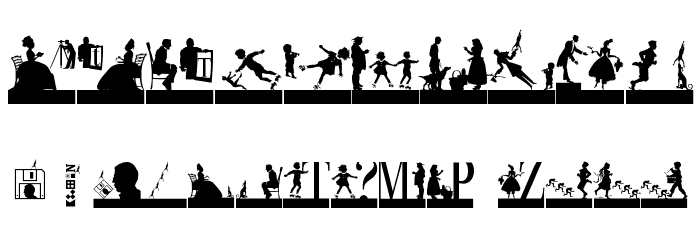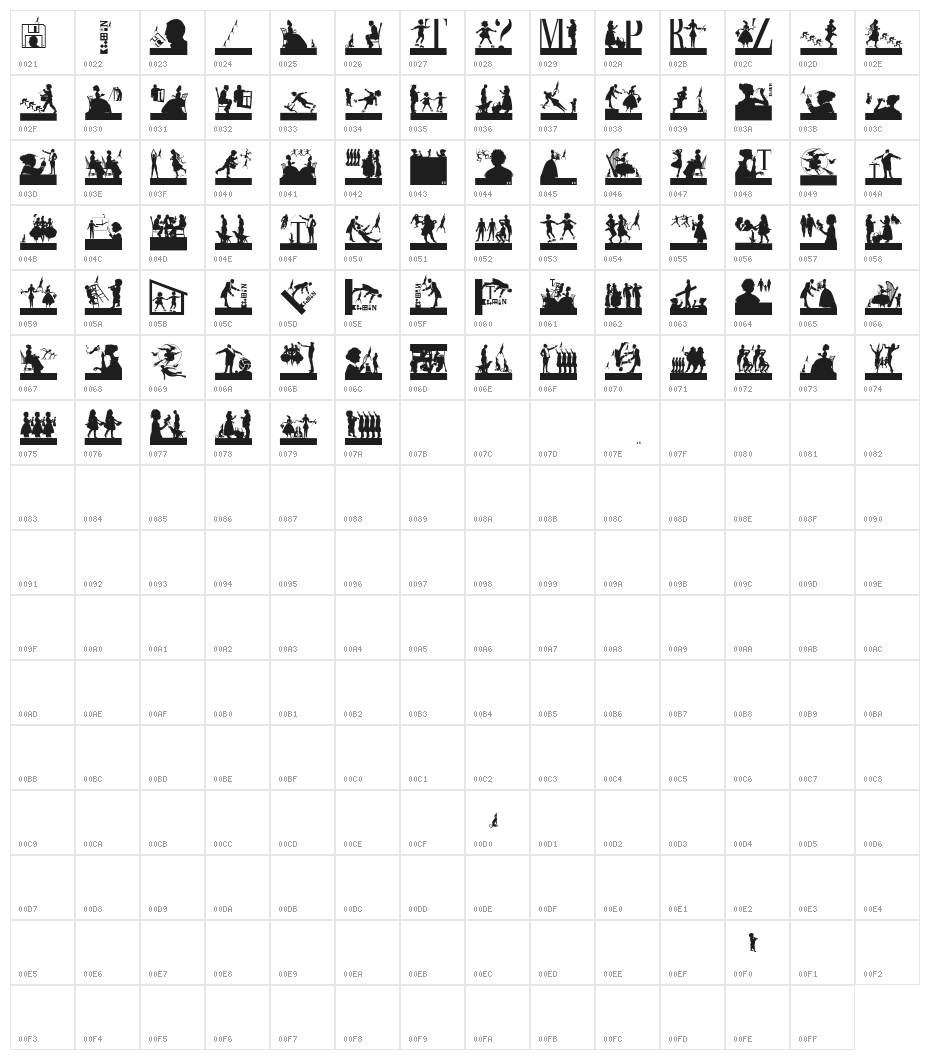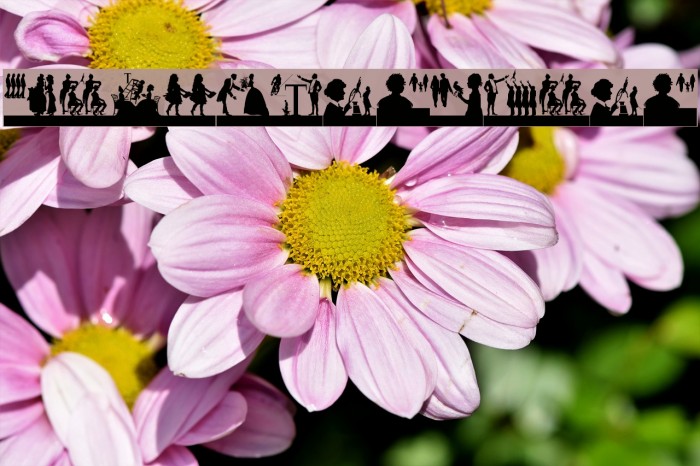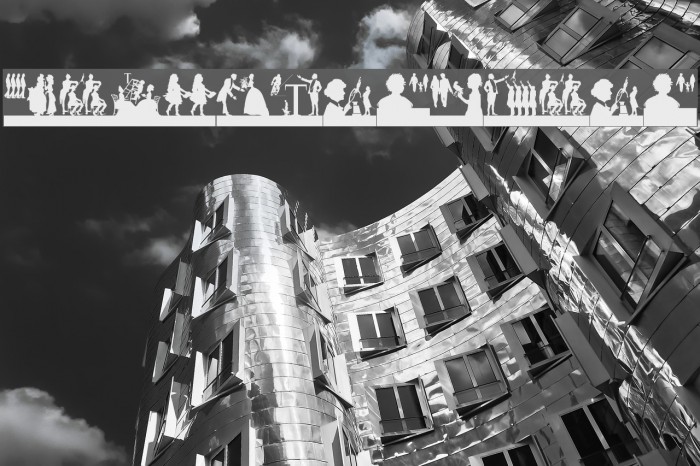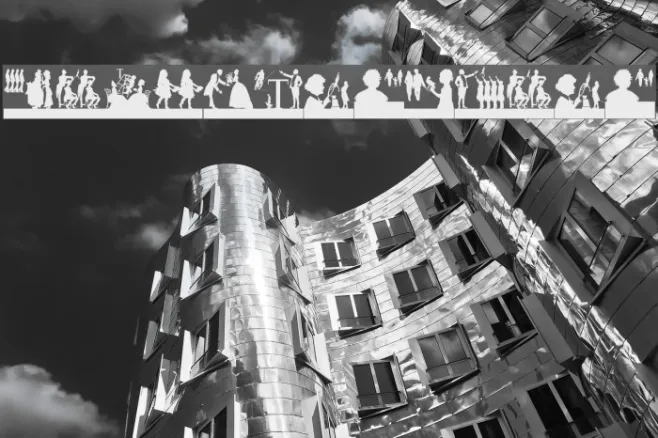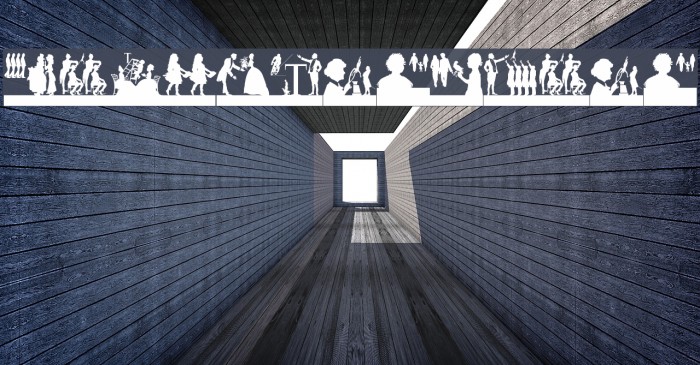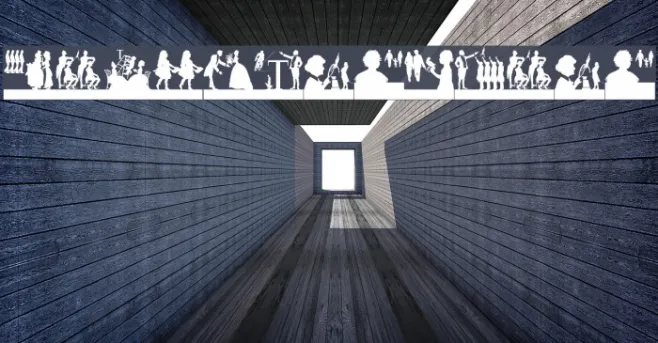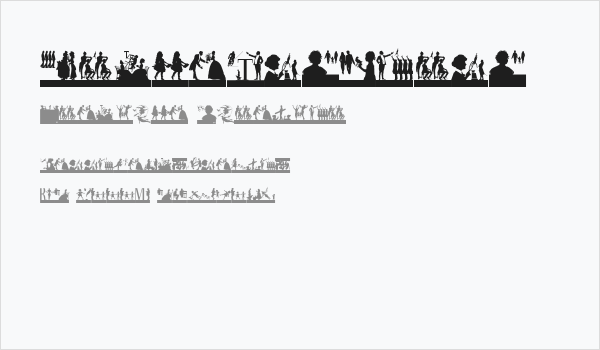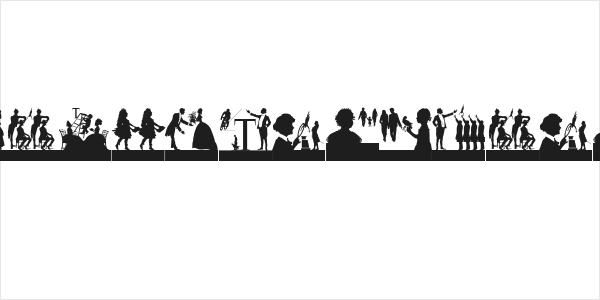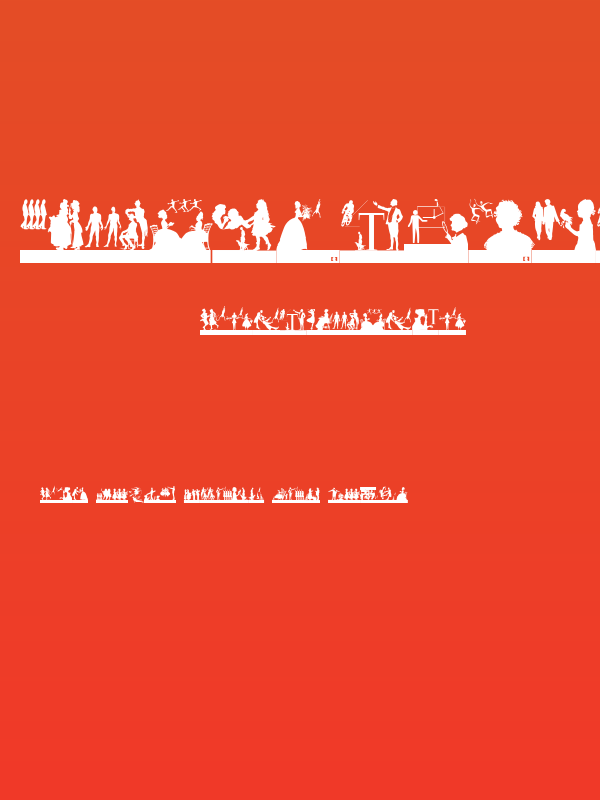
BraveOldWorld Font
BraveOldWorld Description
This font is a unique and artistic representation of characters, where each letter and number is creatively integrated with silhouettes of people and scenes. The design is highly decorative, with each character appearing as a small vignette or scene, depicting various activities and interactions. The silhouettes are bold and striking, creating a strong visual impact. This font is not suitable for body text due to its intricate design but serves as an excellent choice for projects requiring a thematic or narrative element. The characters are evenly spaced, ensuring clarity despite the complex designs. The overall style is whimsical and narrative-driven, making it ideal for storytelling or thematic displays.
| Proposed Projects | Ideal for book covers, posters, theatrical promotions, or any project requiring a narrative or thematic element. |